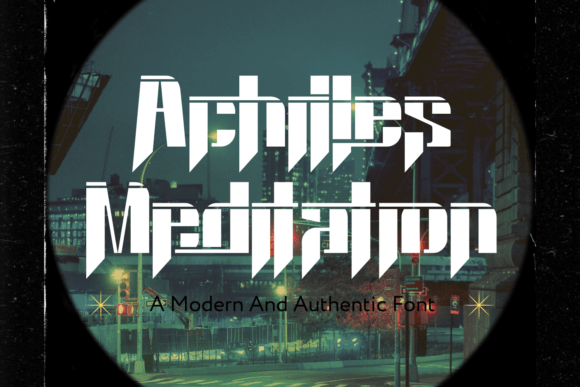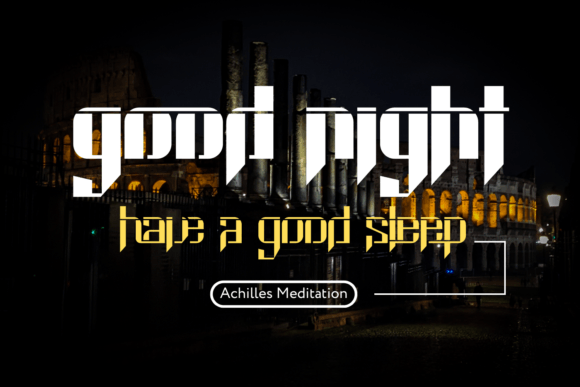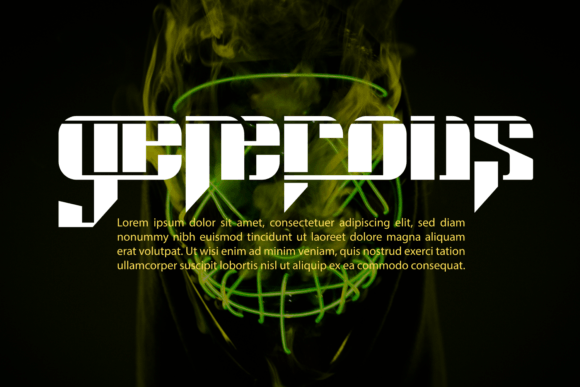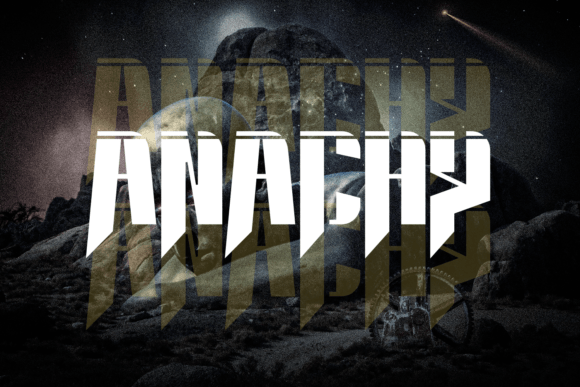
Achilles Meditation Font
Achilles Meditation Font is a bold and authentic display font. It’s inspired by action movie posters with the theme of war or Knights in the Night knight. This font is not just a collection of letters; it’s a visual narrative of strength, speed, and superhero prowess. Whether you’re designing a logo for a masked vigilante, creating dynamic sports-themed graphics, or crafting the name of a superhero, this font is your ally in making a bold statement.This font is PUA encoded which means you can access all of the amazing glyphs and ligatures with ease!